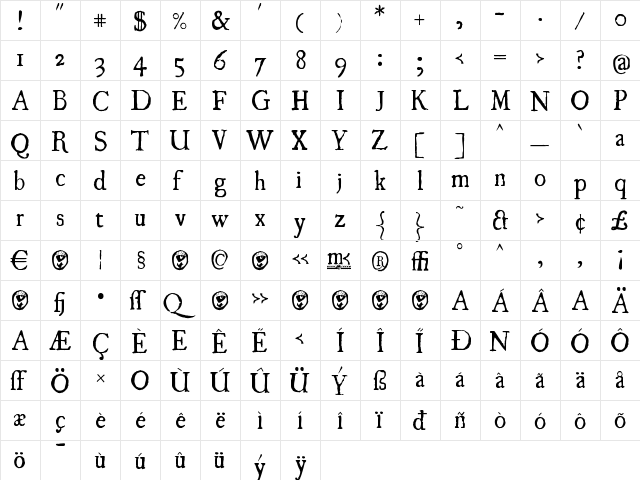
UglyQua Regular
Design Context for UglyQua Typeface
UglyQua takes a measured approach to typography — its balanced proportions and neutral character make it a reliable workhorse for both digital and print work.
Pro Tip: Use UglyQua in both headline and body roles to test its range before committing to a single application.